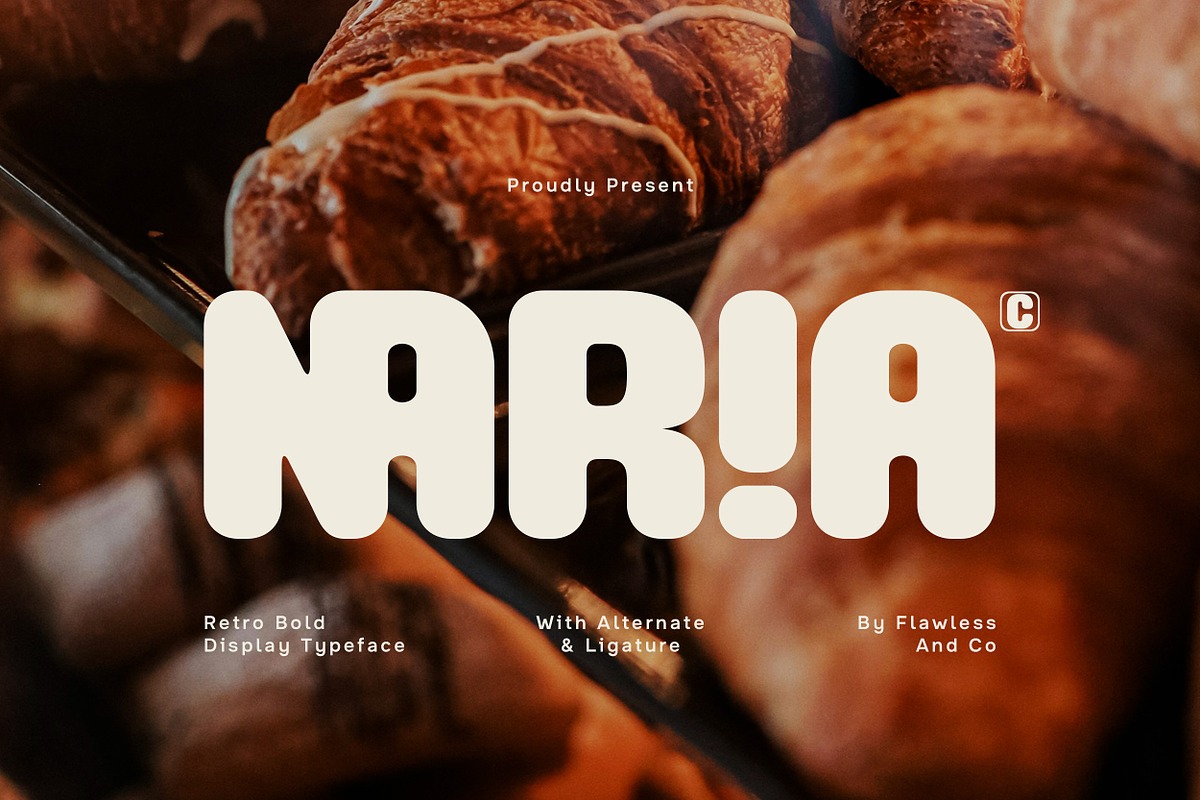
Naria – Bold Display Font
Naria – Bold Display Font is a clean and thoughtfully built typeface that works seamlessly for both professional branding and everyday creative uses. Naria is a retro bold display typeface that captures the spirit of vintage design with a strong and confident modern twist. Built with thick strokes and distinctive retro shapes, Naria delivers a bold visual impact that instantly stands out. Its nostalgic style brings warmth and character, making every design feel lively, expressive, and full of personality.